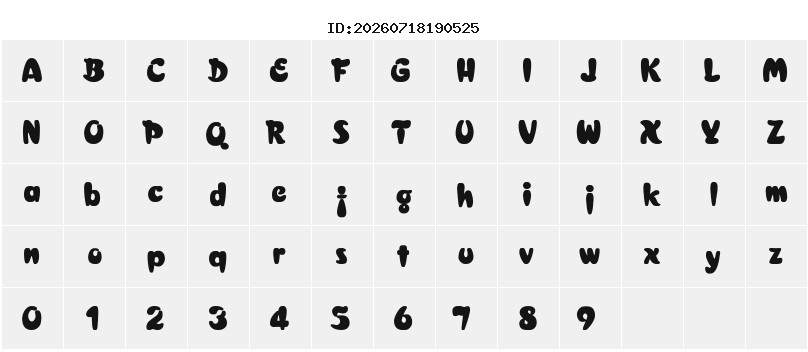
Croissant Bold Preview
• Font Name: Croissant Bold
• Full Font Name: Croissant Bold
About Croissant Bold.ttf
Croissant Bold.ttf is a modern, elegant sans-serif font designed for ultimate readability and visual harmony. Perfect for branding, headlines, web design, and print materials.